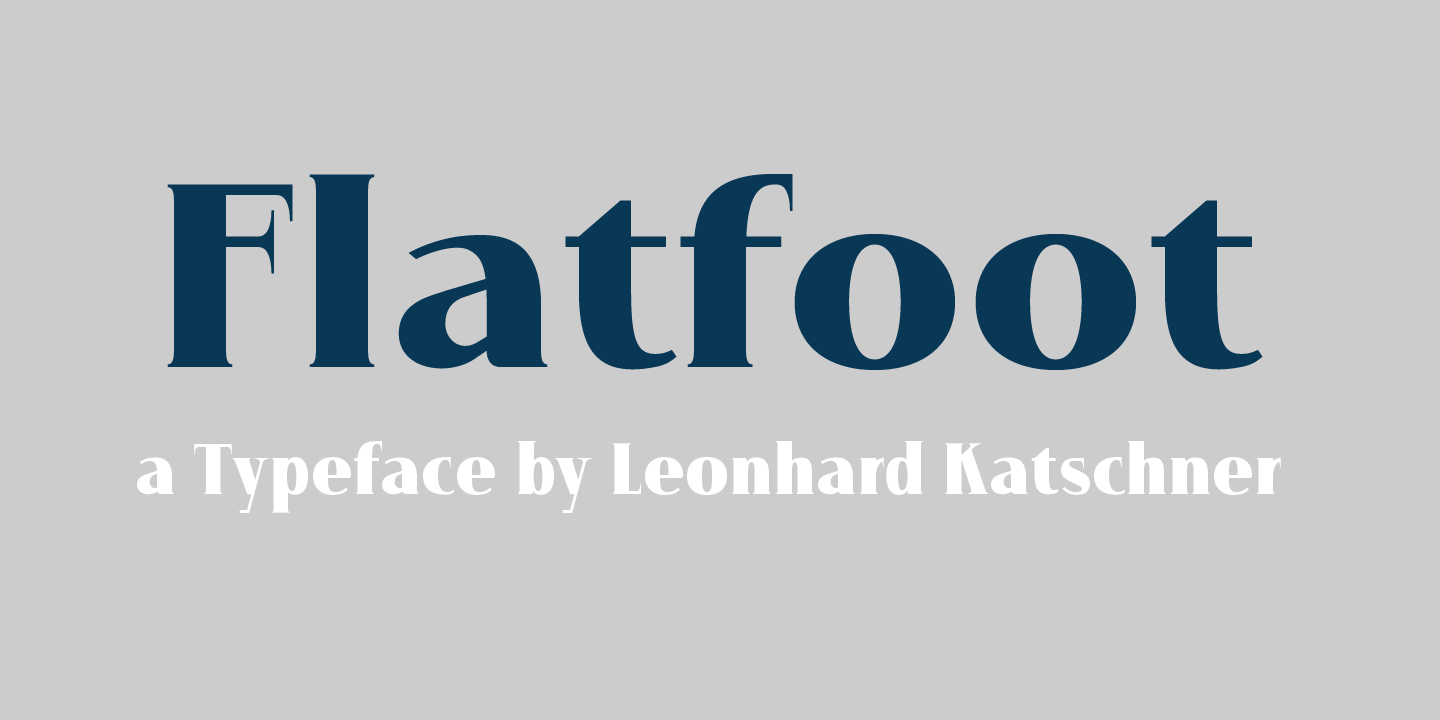
This straightforward typeface is perfect for detective agency branding, police department communications, crime thriller book covers, investigative journalism publications, security company logos, law enforcement training materials, mystery novel designs, and investigative communications that require authoritative presence and investigative authenticity with no-nonsense professionalism and straightforward reliability.
Flatfoot Font is exciting because it perfectly captures the steadfast determination and methodical approach of professional investigators through its solid, dependable letterforms that convey unwavering dedication to truth and justice. The font's distinctive character design and investigative aesthetic evoke the world of street-smart detectives and thorough police work, making it ideal for law enforcement organizations that want to convey investigative expertise, professional reliability, and the kind of straightforward authenticity that builds trust with communities seeking effective crime-solving and public safety services.
The Flatfoot Font family includes investigative variations and law enforcement styling options, featuring regular, bold, condensed, and heavy versions, along with police-inspired design elements and detective alternates that provide law enforcement agencies and designers with comprehensive typographic tools for creating authentic investigative branding and professional police communications.
Solve design challenges with Flatfoot Font Free Download, a typeface that brings investigative authenticity to contemporary law enforcement and security branding projects. This exceptional font combines professional authority with street-smart functionality, making it an indispensable resource for police departments, detective agencies, and designers working on crime-related entertainment or security brands. The solidly crafted letterforms ensure maximum credibility while conveying the investigative determination and law enforcement professionalism that defines this distinctly police-oriented and authentically detective-inspired typeface.